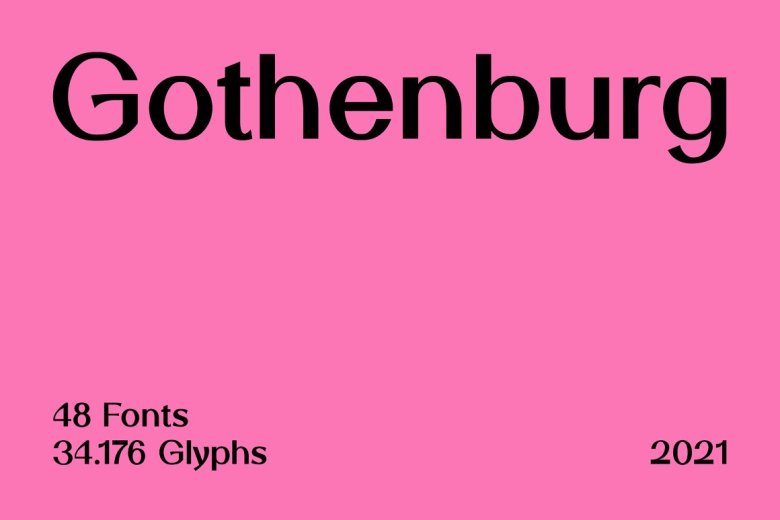
SK Gothenburg Font
SK Gothenburg Sans Serif Font, designed by Salih Kizilkaya is an elegant and modern sans serif font designed with inspiration from the blending of the historical structure of the city of Gothenburg with its modern life. It contains all the typographic elements you will need.
It offers full support for the Latin alphabet, and includes basic characters in Cyrillic and Greek alphabets. SK Gothenburg contains 48 different fonts and 34,176 glyphs.
SK Gothenburg Sans Serif Font